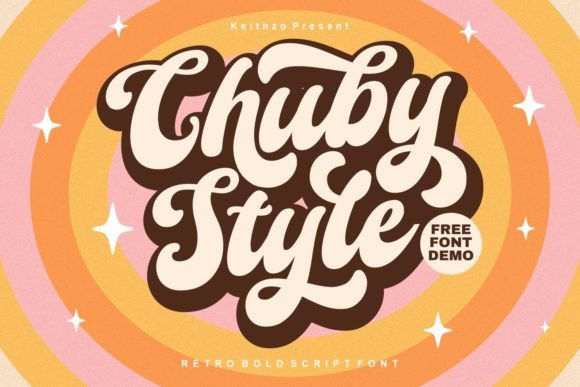
Step into the world of Chuby Style Font, a calligraphic masterpiece that will bring life and personality to your creative endeavors. This captivating script font, designed by the talented Keithzo (7NTypes), exudes a chubby and modern flair that is perfect for injecting a playful and stylish touch to any project. With its round edges and soft curves, Chuby Style Font creates a unique and contemporary aesthetic that is sure to make a statement.
Unleash your creativity and explore the endless possibilities that await with Chuby Style Font. Its versatility knows no bounds, making it the perfect choice for a wide range of applications. Craft eye-catching logos that leave a lasting impression, design stunning social media graphics that captivate your audience, or create beautiful invitations and greeting cards that convey heartfelt messages. Let Chuby Style Font be your companion as you embark on a journey of artistic expression.
Immerse yourself in the world of Skype Business and elevate your communication to new heights with Chuby Style Font. Its charming and inviting character adds a personal touch to your messages, making every conversation feel more genuine and connected. Engage with clients, colleagues, and friends in a memorable and engaging way, leaving a lasting impression that sets you apart.
With Chuby Style Font, the possibilities are truly endless. Its versatility extends beyond the digital realm, making it a perfect choice for handmade projects as well. Create personalized home décor items, design unique clothing and accessories, or add a touch of whimsy to your bullet journal spreads. Let Chuby Style Font inspire you to explore new creative avenues and bring your unique vision to life.
Chuby Style Font is more than just a font; it's an invitation to embark on a creative adventure. Its delightful design and captivating charm will add a touch of magic to your projects, leaving a lasting impression on your audience. Embrace the playful spirit of Chuby Style Font and let your creativity shine.